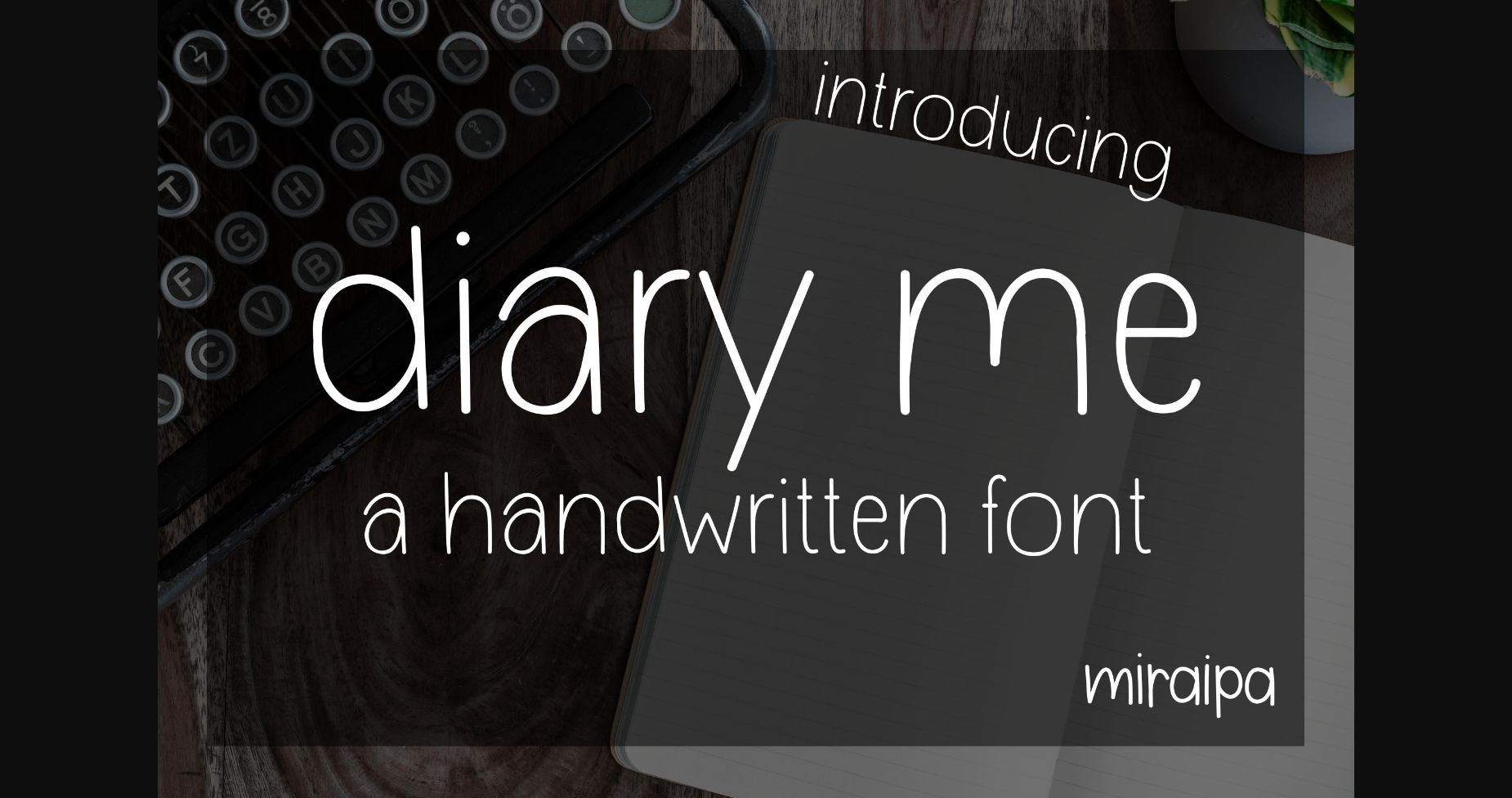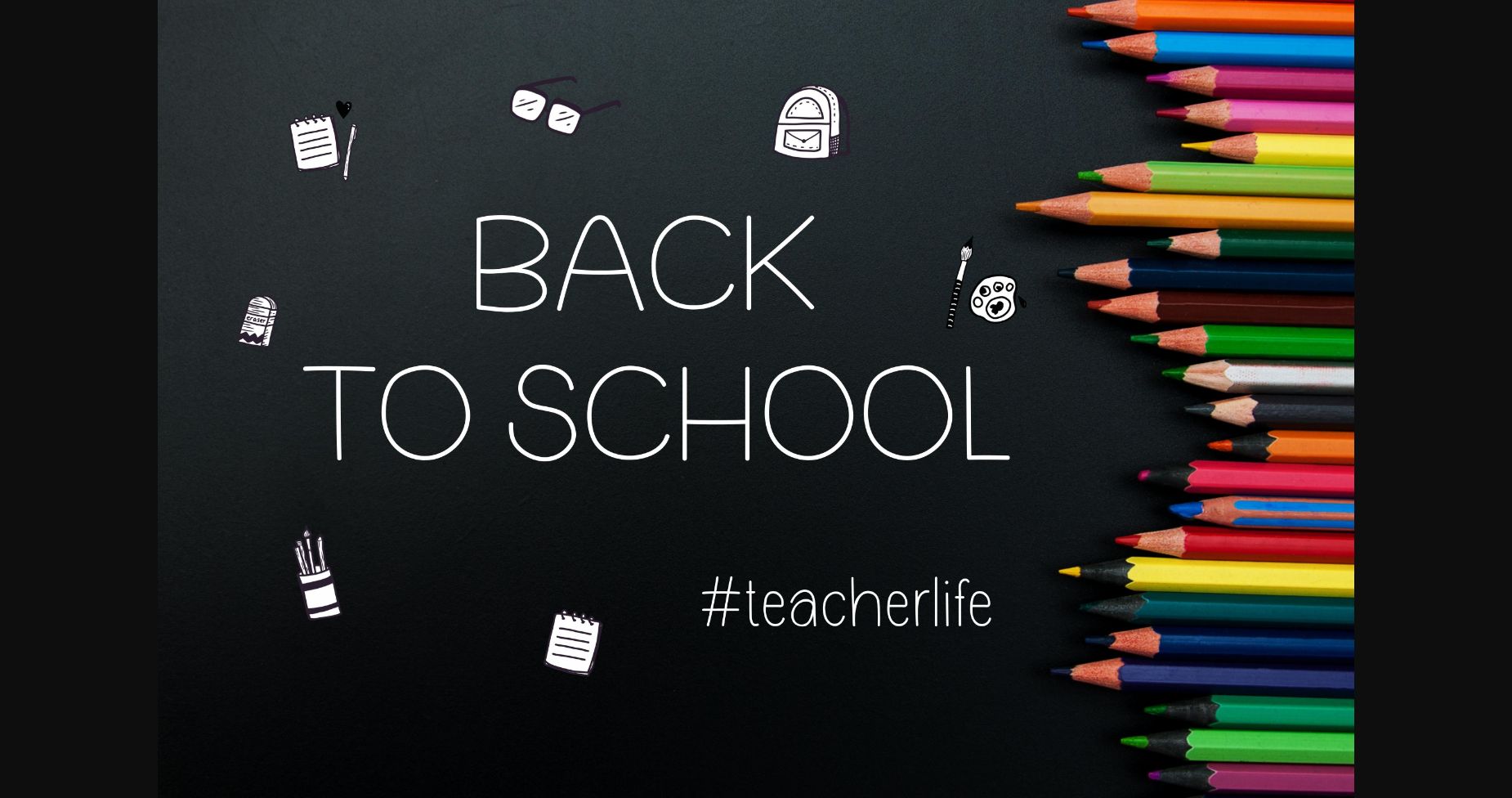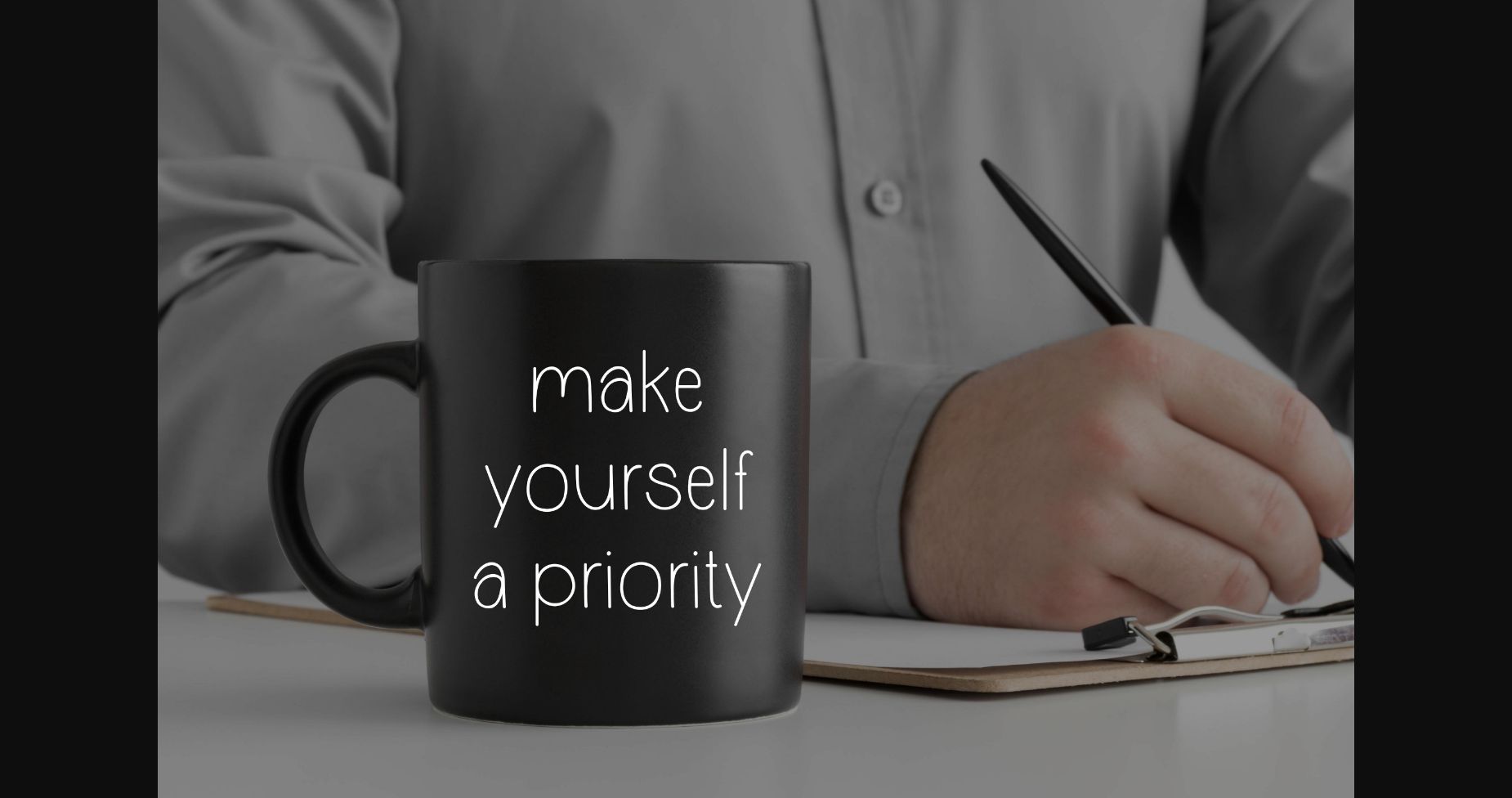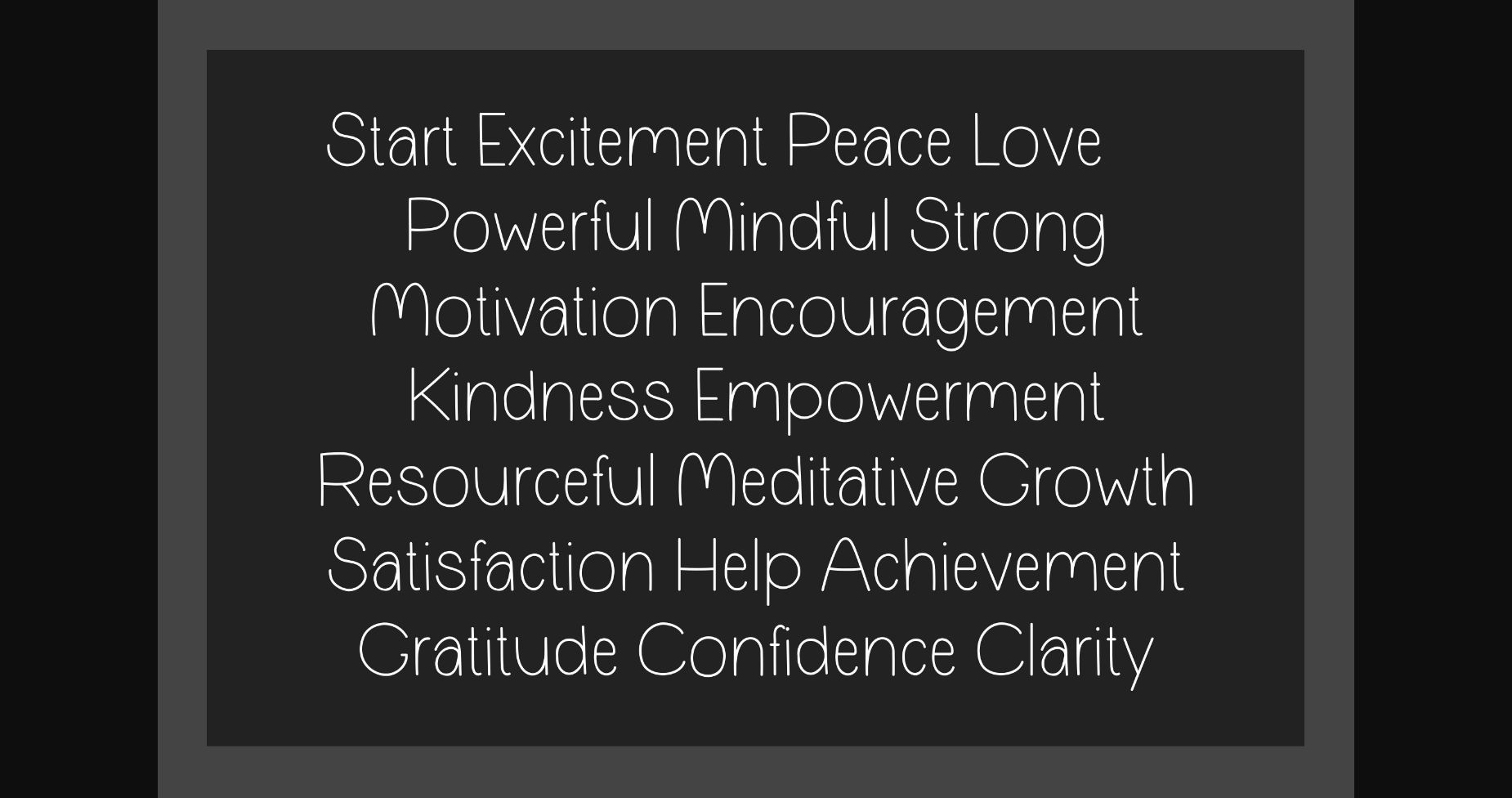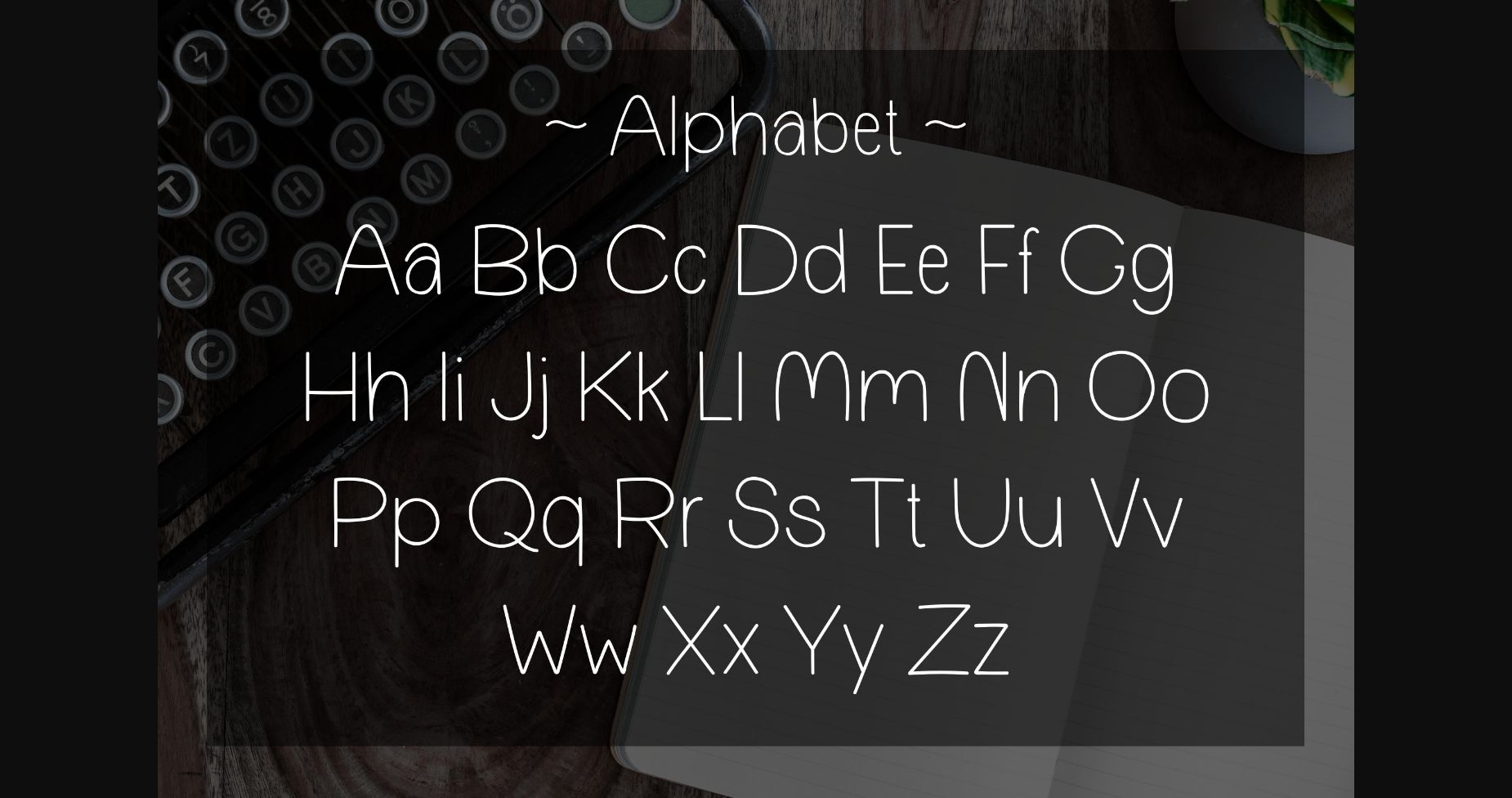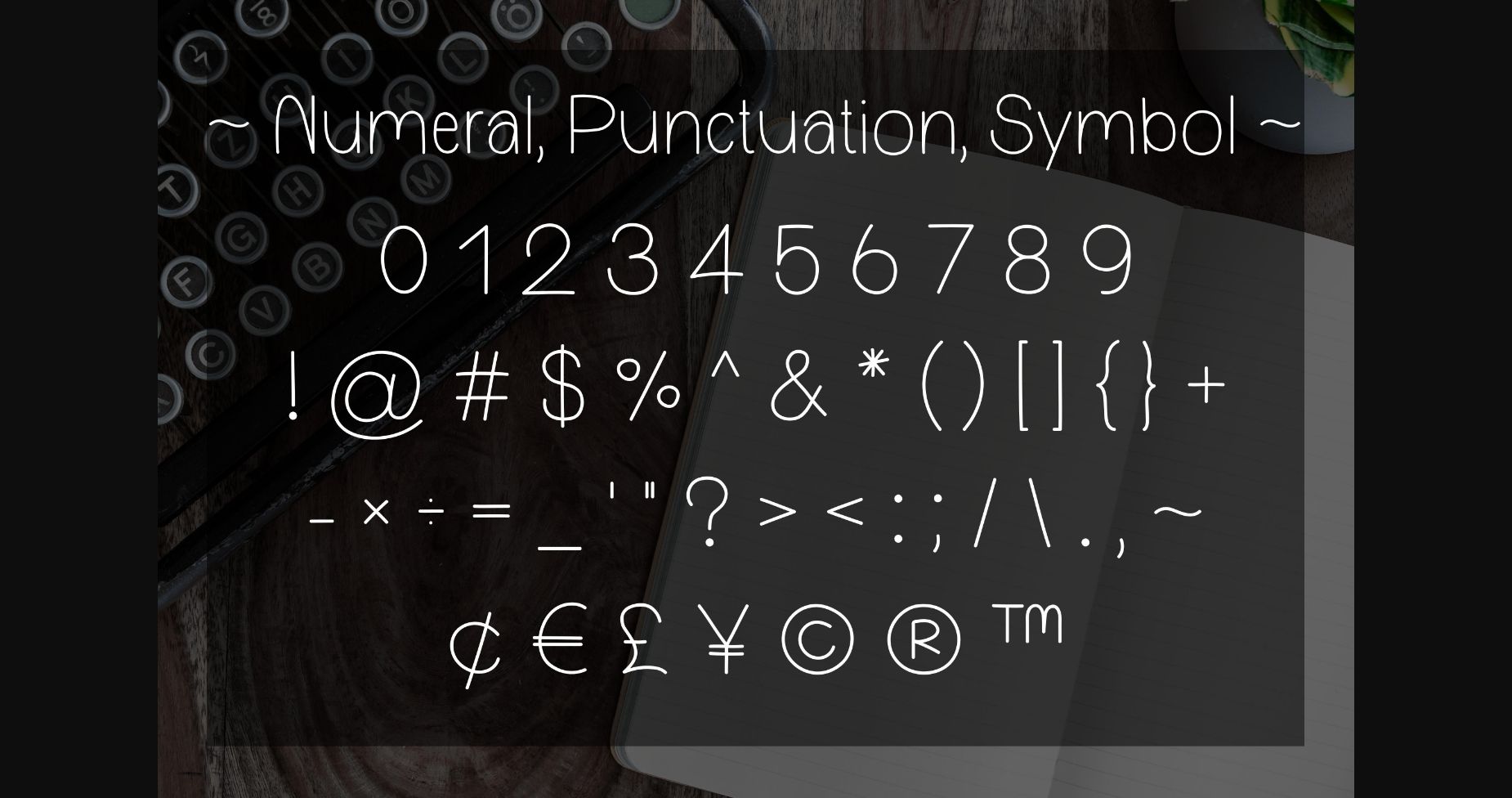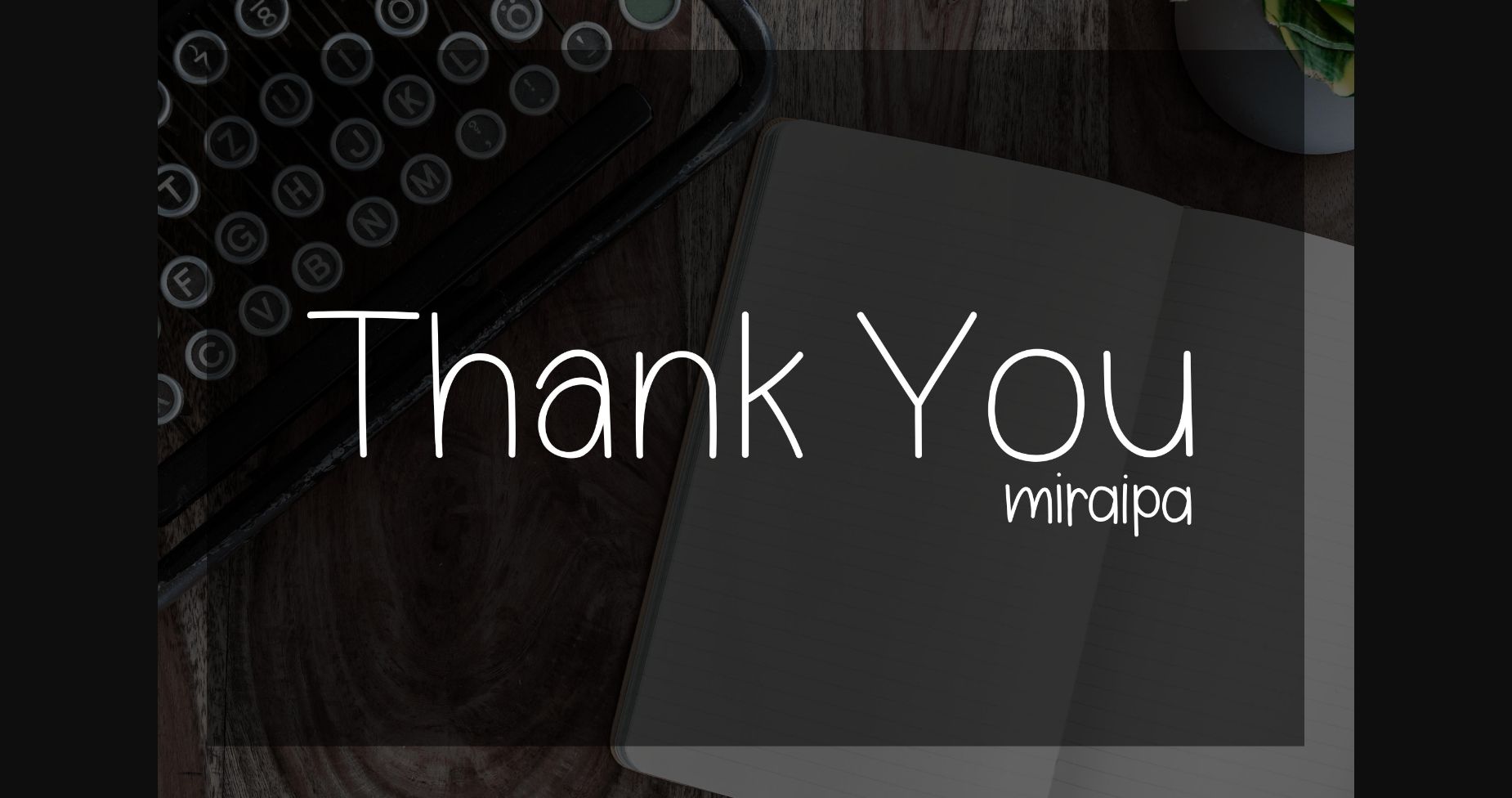
Diary Me is a Handwritten font designed in a lovely and friendly style. It would be awesome for those who love handwriting and to add a touch of friendly and wonderful to your projects.